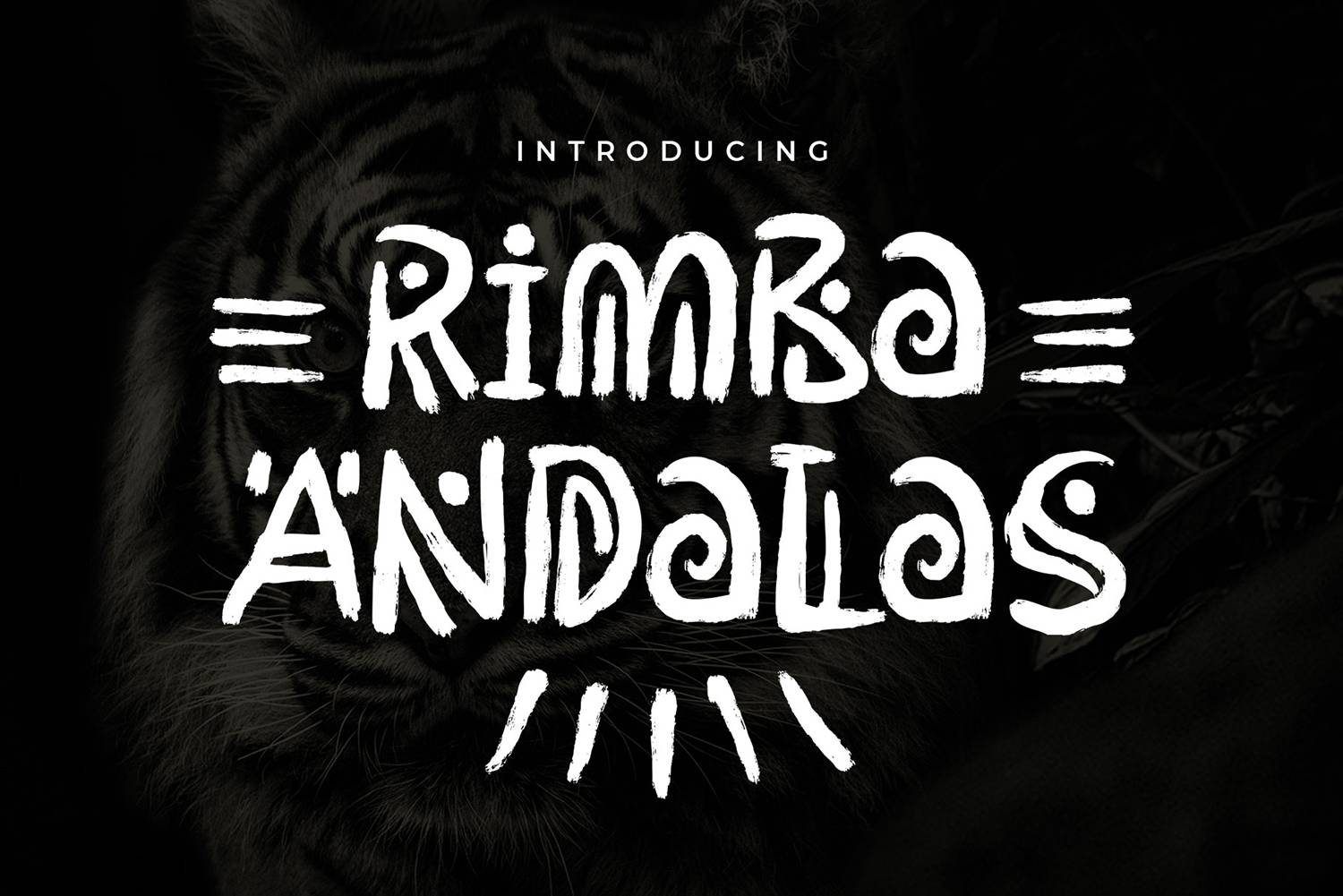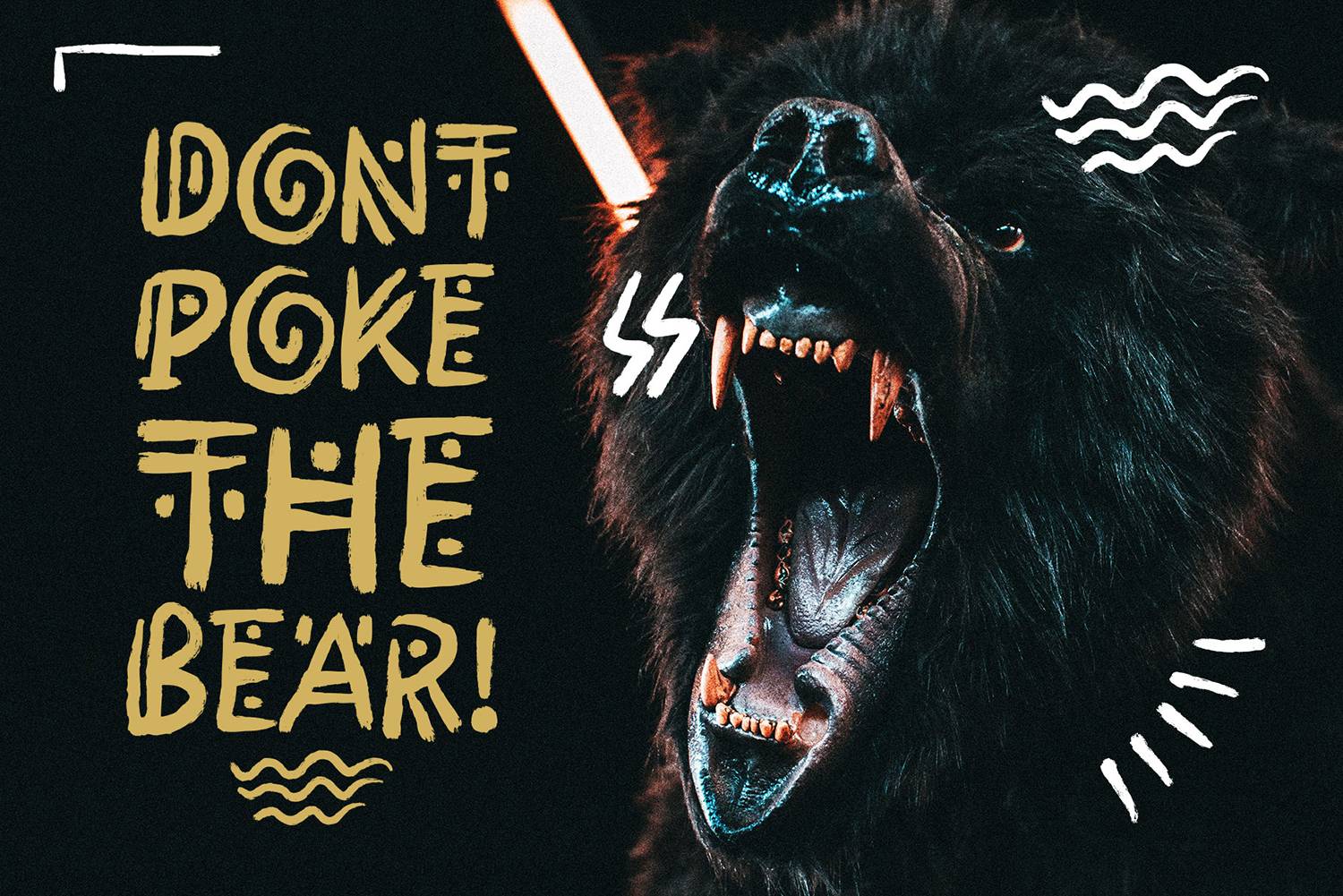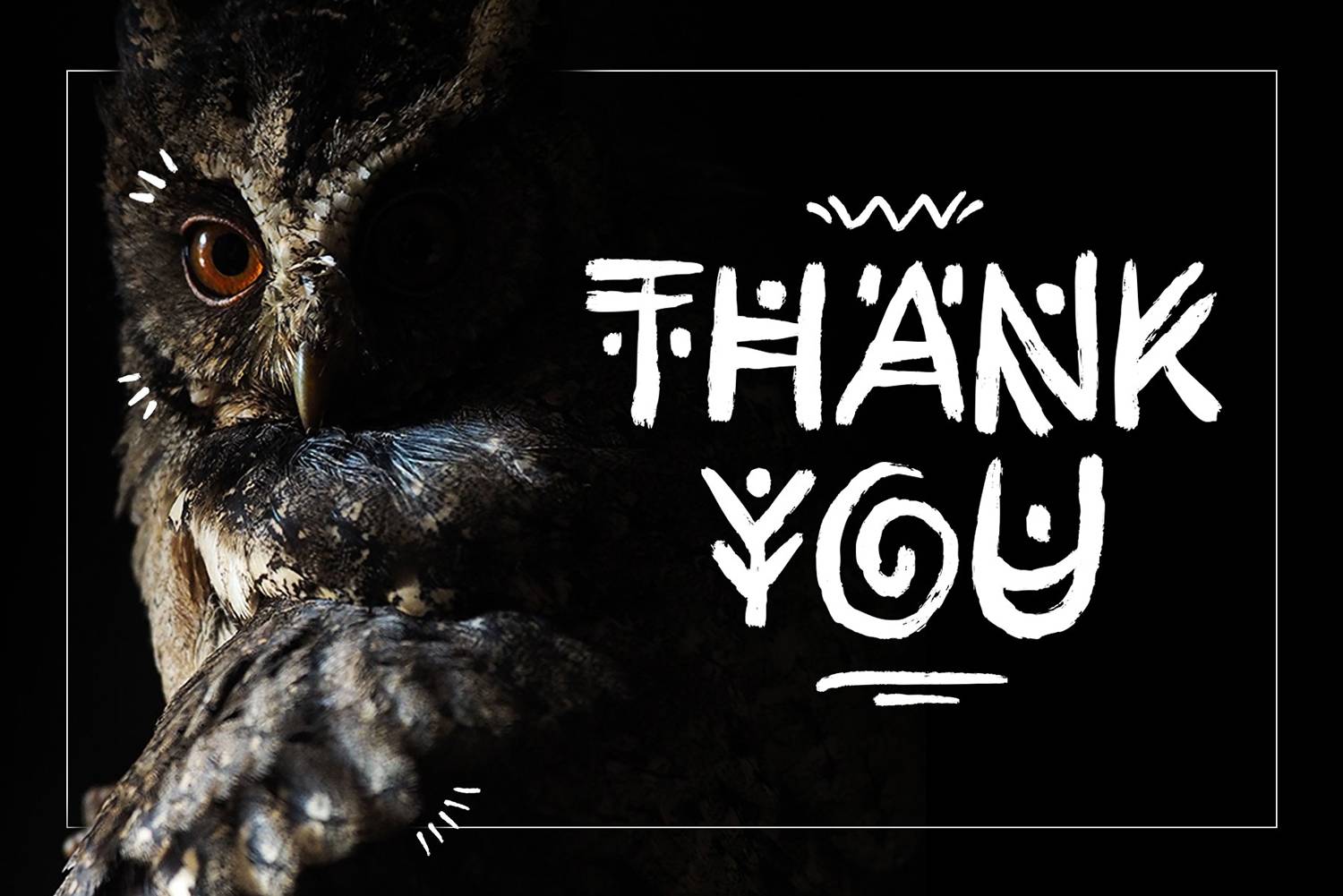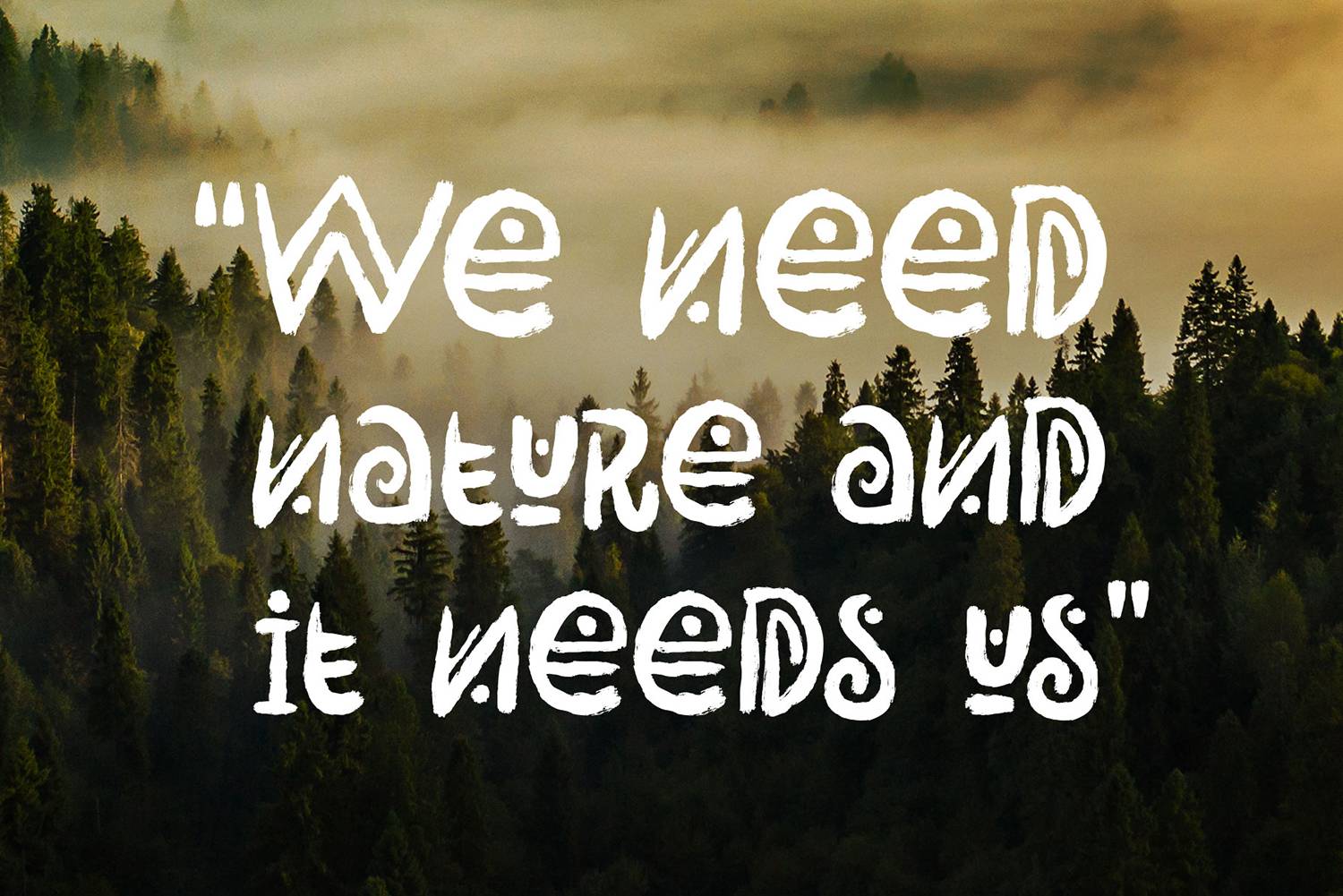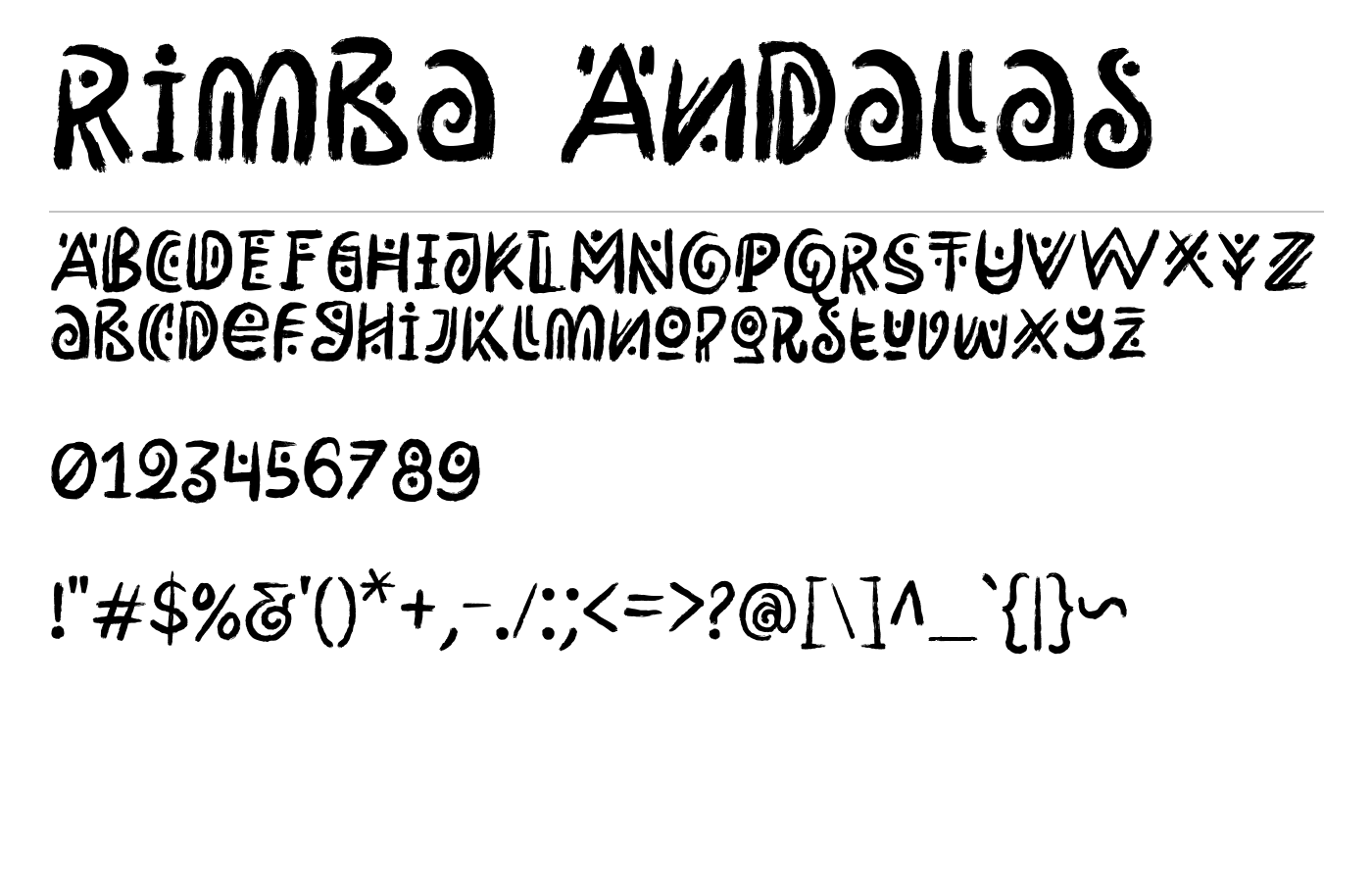
Rimba Andalas is a playful, hand-drawn display font with irregular shapes and a whimsical feel, featuring bold strokes and quirky, organic letterforms reminiscent of tribal or primitive art. Its unique characters and uneven texture make it perfect for creative projects, logos, posters, and designs seeking an adventurous, artistic, and distinctive look. This font stands out best in headlines or decorative use where personality and visual interest are key.
Rimba Andalas Font
About Rimba Andalas Font
| Font family | Rimba Andalas Font |
| Release date | 2020-10-14 |